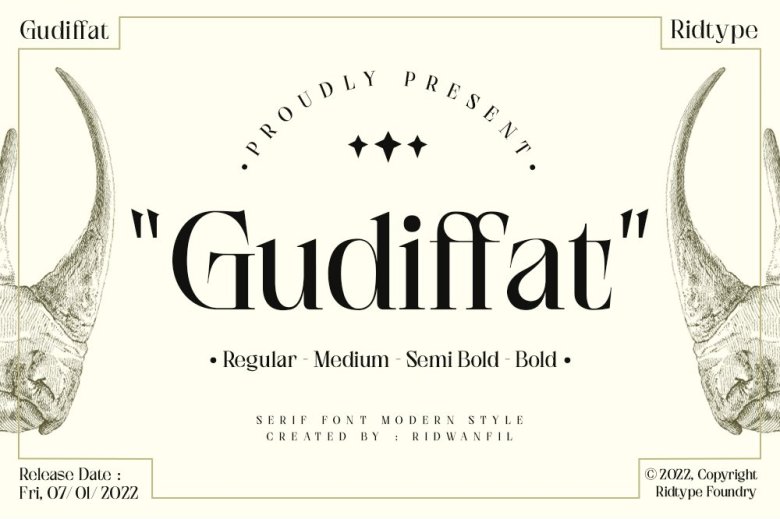
Gudiffat Font
Inspired by Luxurious Lifestyle and Intellectual Brilliance, Gudiffat Serif Font Furthermore it has many style alternatives, ligatures from uppercase to lowercase letters and also callable symbols of other supporting characters to adjust your needs.
Gudiffat Serif Font